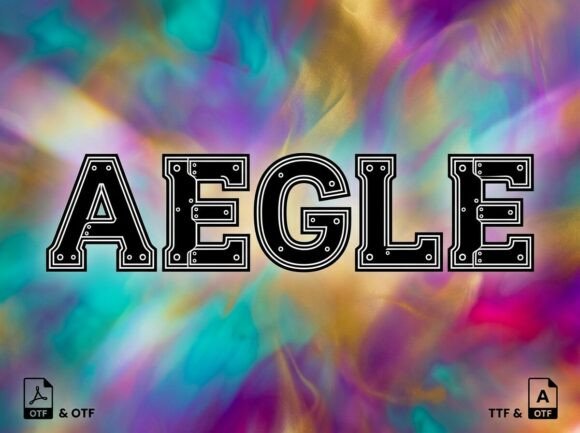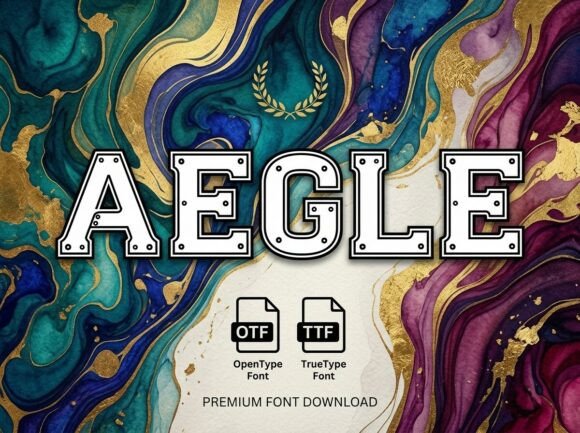
Unleash the Power of Typography: Aegle Font Redefines the Rules
As a designer, there’s that moment when the perfect font suddenly appears, and everything clicks into place. It’s like stumbling upon a hidden treasure, where the perfect balance of style and substance leaves you breathless. For me, that moment arrived when I laid eyes on Aegle Font – a monumental display typeface that embodies the spirit of strength and resilience.
Aegle Font is more than just a font; it’s a statement piece that radiates power and precision. Its unique “riveted” aesthetic and double-outline structure make it the perfect choice for a wide range of applications, from varsity sports branding to industrial-themed brewery logos. As a designer, Aegle Font is a valuable asset that can elevate your projects and leave a lasting impression.
Aegle Font Key Features
- Font Family: Aegle Font comes in multiple font styles including Regular, Italic, Bold, and Bold Italic.
- Unique Characteristic: Aegle Font features a unique blend of modern and elegant design elements, making it an excellent choice for creative and professional projects.
Aegle Font Review
Overall, I was impressed with the unique design of Aegle Font. The combination of clean lines and elegant curves creates a beautiful contrast that works well in both digital and print media. ✨
Some of the features that caught my attention include:
- Wide range of weights and styles, making it versatile for various design projects
- High-quality typography, ideal for titles and headings
- Suitable for both modern and classic designs, adding a touch of sophistication
- The font may not be suitable for body text due to its large x-height and distinctive letterforms ⚠️
- The range of languages supported is limited, which may not be ideal for multilingual projects
Despite these limitations, I believe Aegle Font is a solid choice for designers looking to add a touch of elegance to their work. With proper usage, it can elevate a design and create a lasting impression.
Aegle Font is ideal for creating modern and elegant designs in Canva, such as business cards, brochures, and social media graphics.
Aegle Font is ideal for creating sophisticated and professional designs in Adobe Photoshop and Illustrator, such as logos, infographics, and marketing materials.
Aegle Font is ideal for creating clear and concise presentations and documents in PowerPoint and Word, such as reports, proposals, and business communications.
Use Aegle Font in conjunction with other modern and elegant fonts to create a cohesive design.
Experiment with different font sizes and styles to create visual interest and hierarchy.
Use Aegle Font to create headings and titles that stand out and grab attention.
Alternative Fonts to Aegle Font
Inter Font is a modern sans-serif font designed by Rasmus Andersson. It’s a highly legible font suitable for various digital applications, including websites, mobile apps, and print materials. Inter Font is known for its clean and neutral design, making it an ideal choice for corporate brands and digital products.
Compared to Aegle Font, Inter Font is more versatile and has a wider range of weights and styles. While Aegle Font is more suitable for creative and artistic projects, Inter Font is a better choice for professional and corporate designs.
Montserrat Font is a geometric sans-serif font designed by Julieta Ulanovsky. It’s inspired by the urban landscape of Montserrat, a city in Argentina. Montserrat Font is a great choice for headlines, titles, and other display text, thanks to its bold and geometric shapes.
Compared to Aegle Font, Montserrat Font is more dramatic and attention-grabbing. While Aegle Font is more subtle and elegant, Montserrat Font is a better choice for projects that require a strong visual statement.
What font sizes and styles are included in Aegle Font?
Aegle Font includes a range of font sizes and styles, including Regular, Bold, Italic, and Bold Italic. The font family includes 4 weights and 4 styles, providing a versatile range of options for designers. Please refer to the font’s documentation or sample files for a detailed list of available font sizes and styles.